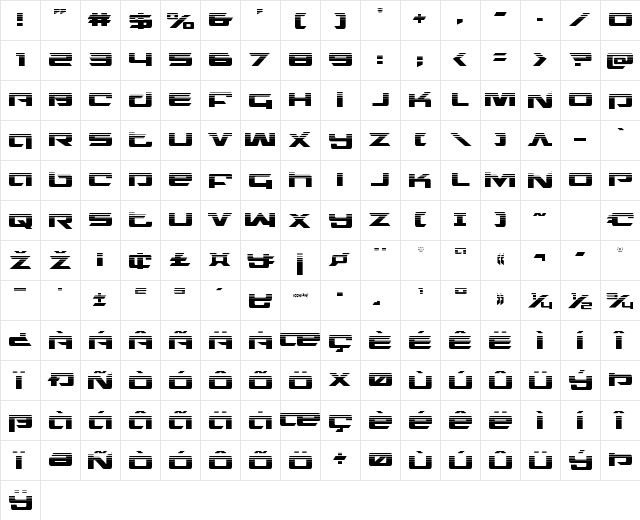
Northstar Halftone Regular Free Font
Northstar Halftone Regular
Northstar Halftone Family
Design Context for Northstar Halftone
Northstar Halftone is a composed and adaptable typeface that performs quietly and consistently across a wide range of design contexts.